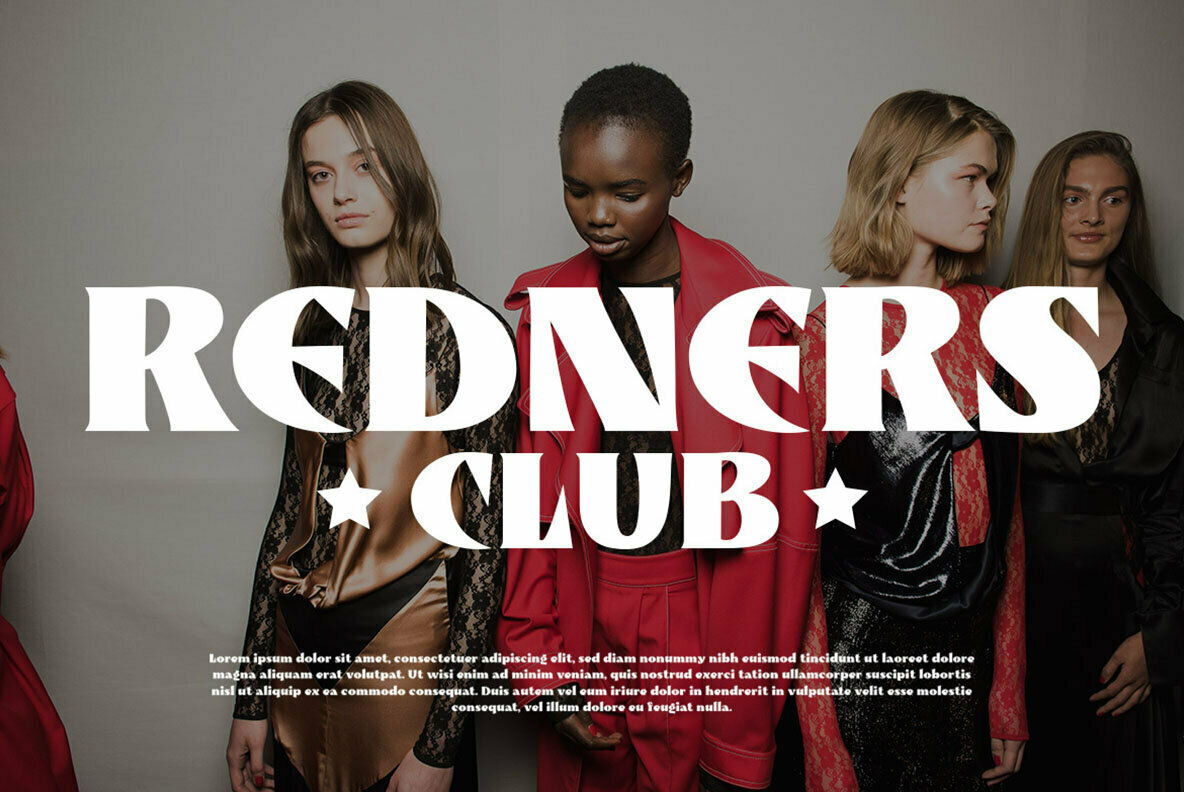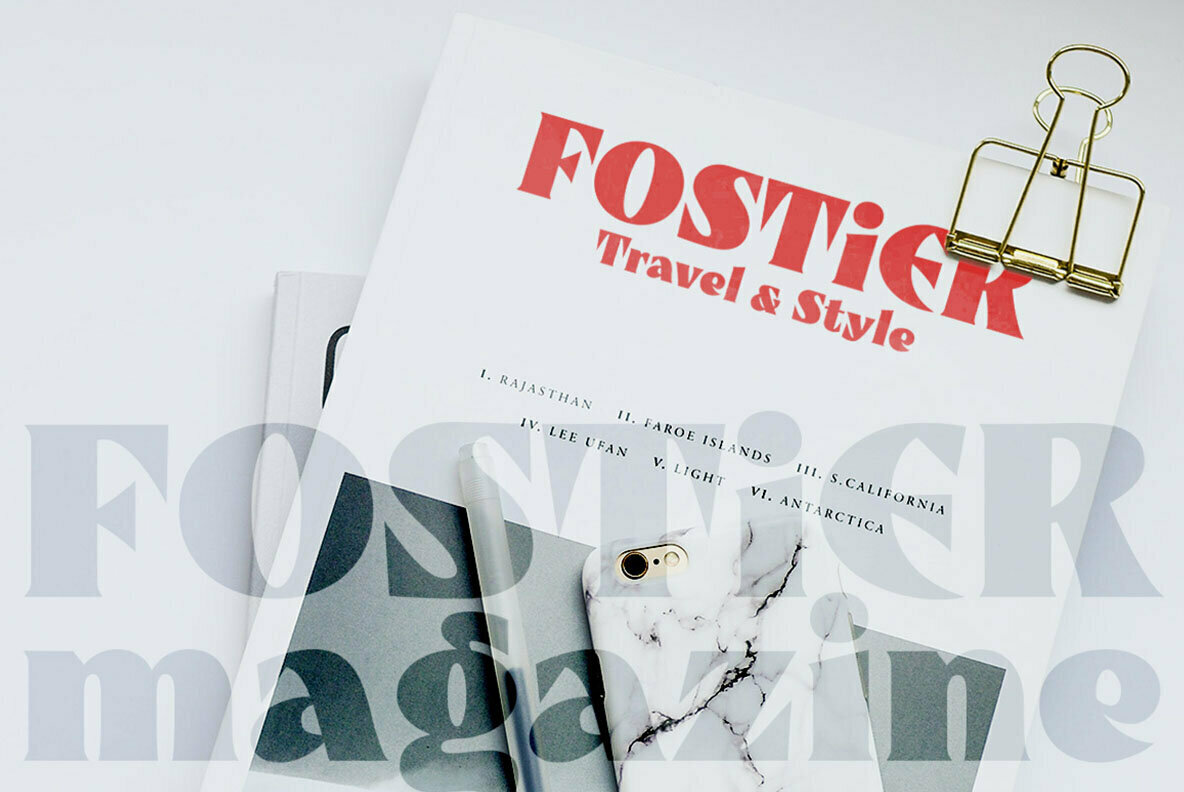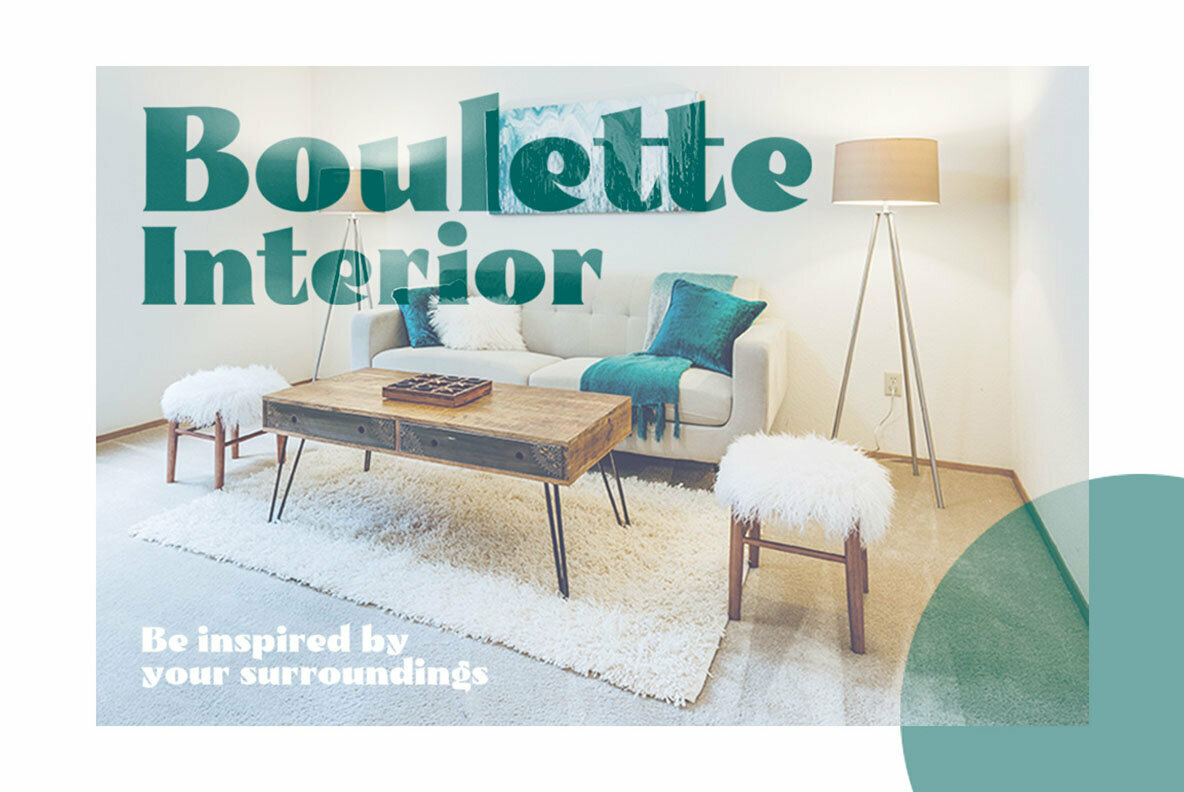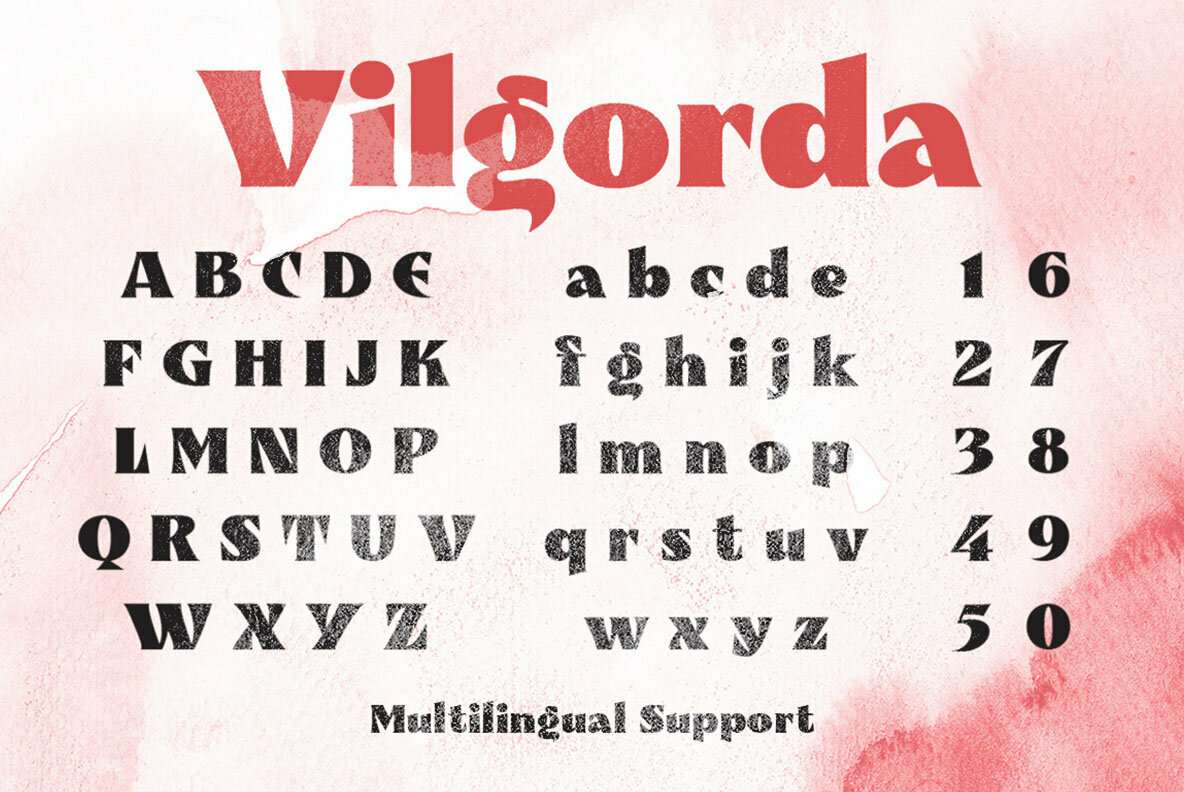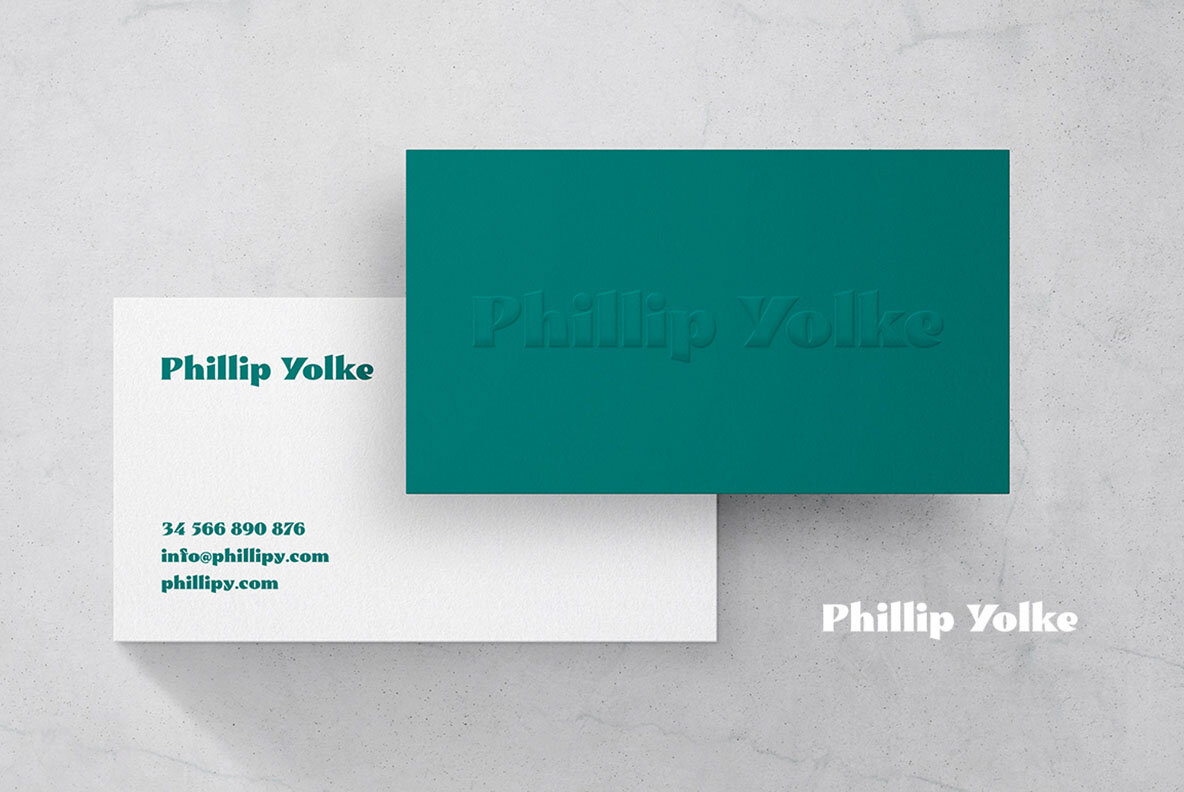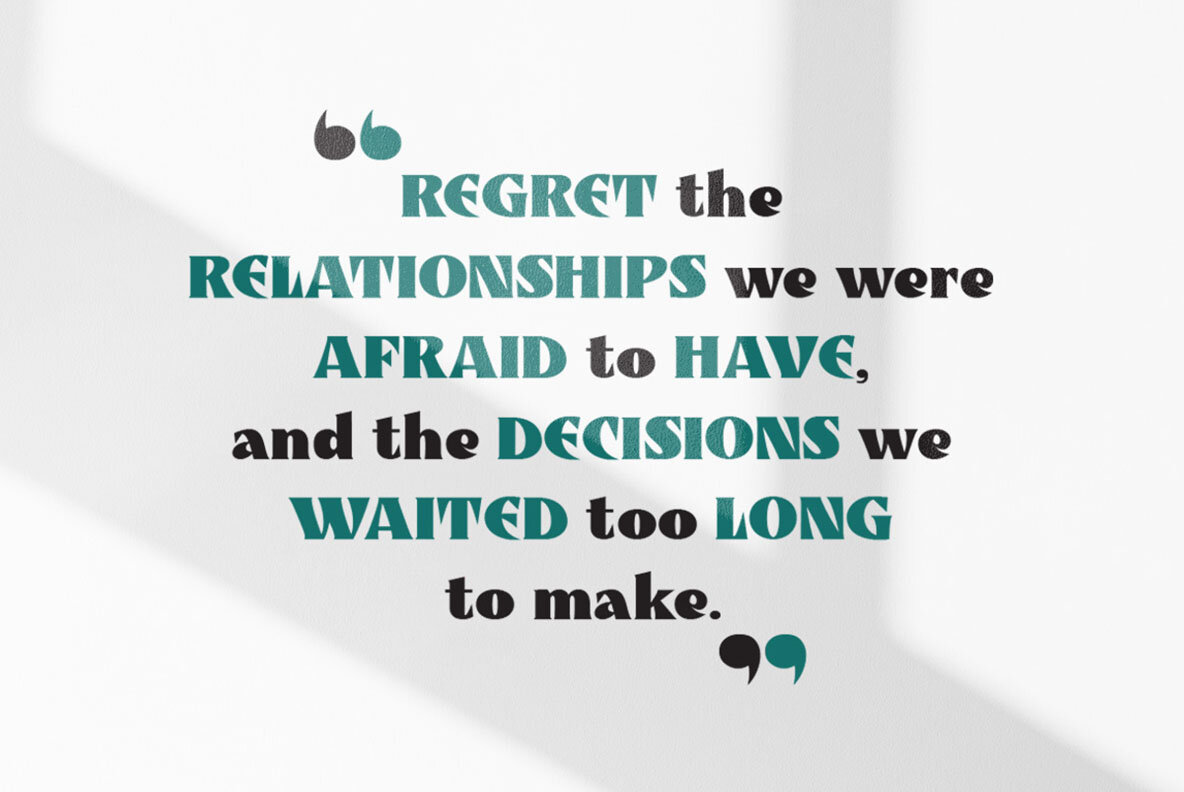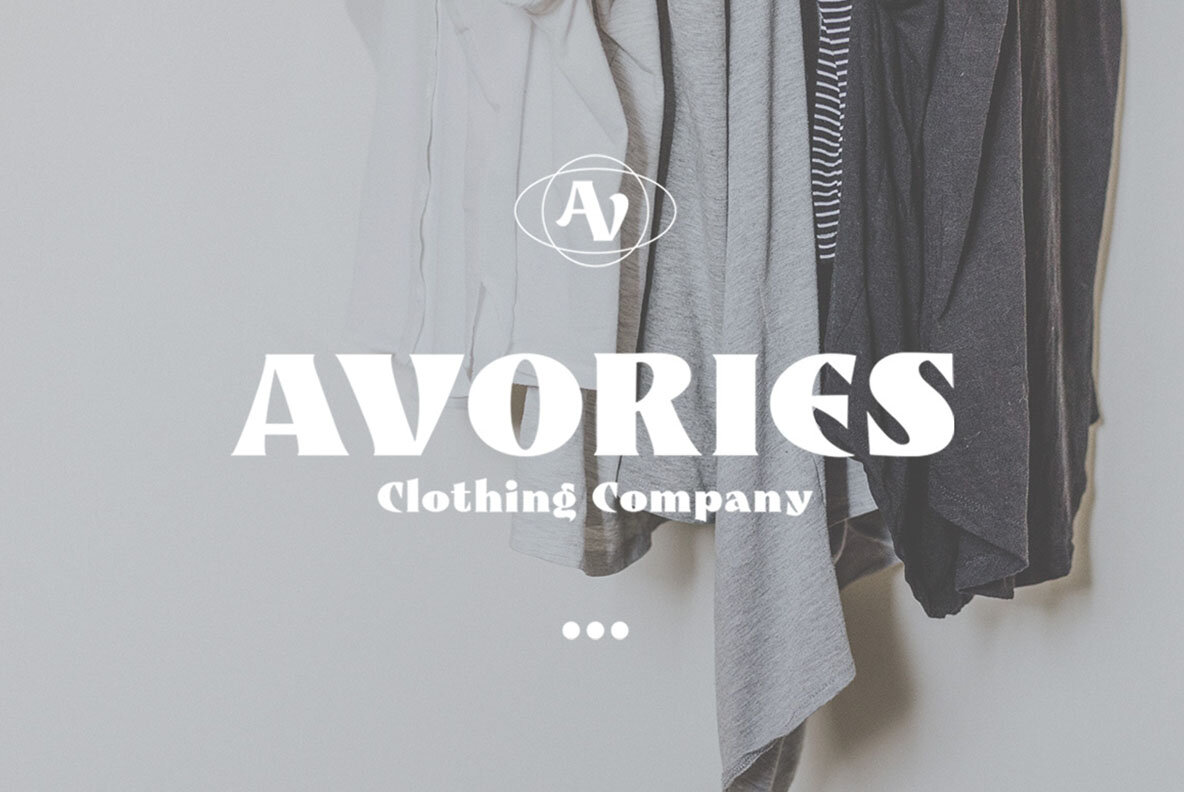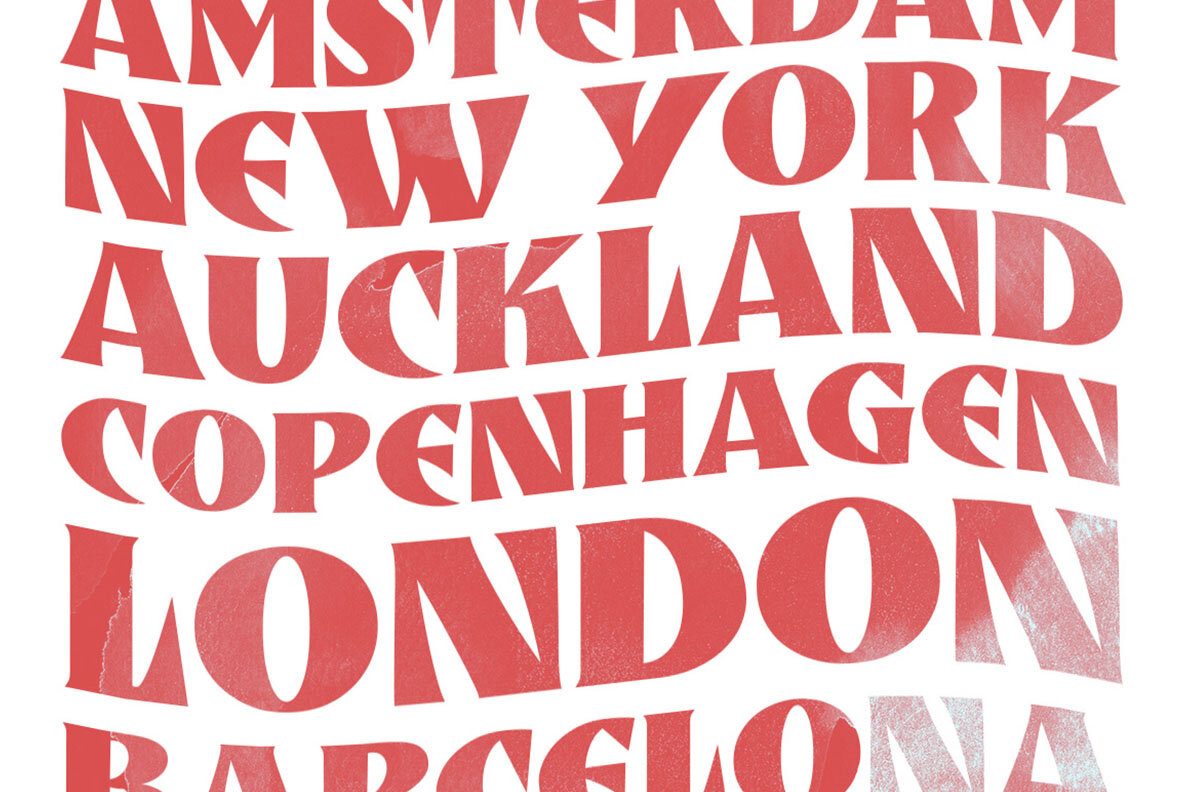
Vilgorda Font
Vilgorda Regular
Vilgorda's distinctive bold design makes it an exceptional choice for creative professionals seeking to make a strong statement. Its clear lines and robust character are ideal for applications ranging from logos and headlines to signage and invitations. The versatility of this display font extends to formal and advertising materials, including books, greeting cards, packaging, and more. For those utilizing advanced design software like Adobe apps and Corel Draw, Vilgorda supports OpenType features accessible via Glyphs panels. Leverage these features to harness its full creative potential. For guidance, visit the detailed tutorial at letterhend.com.Vilgorda: A Bold Display Typeface for Varied Applications